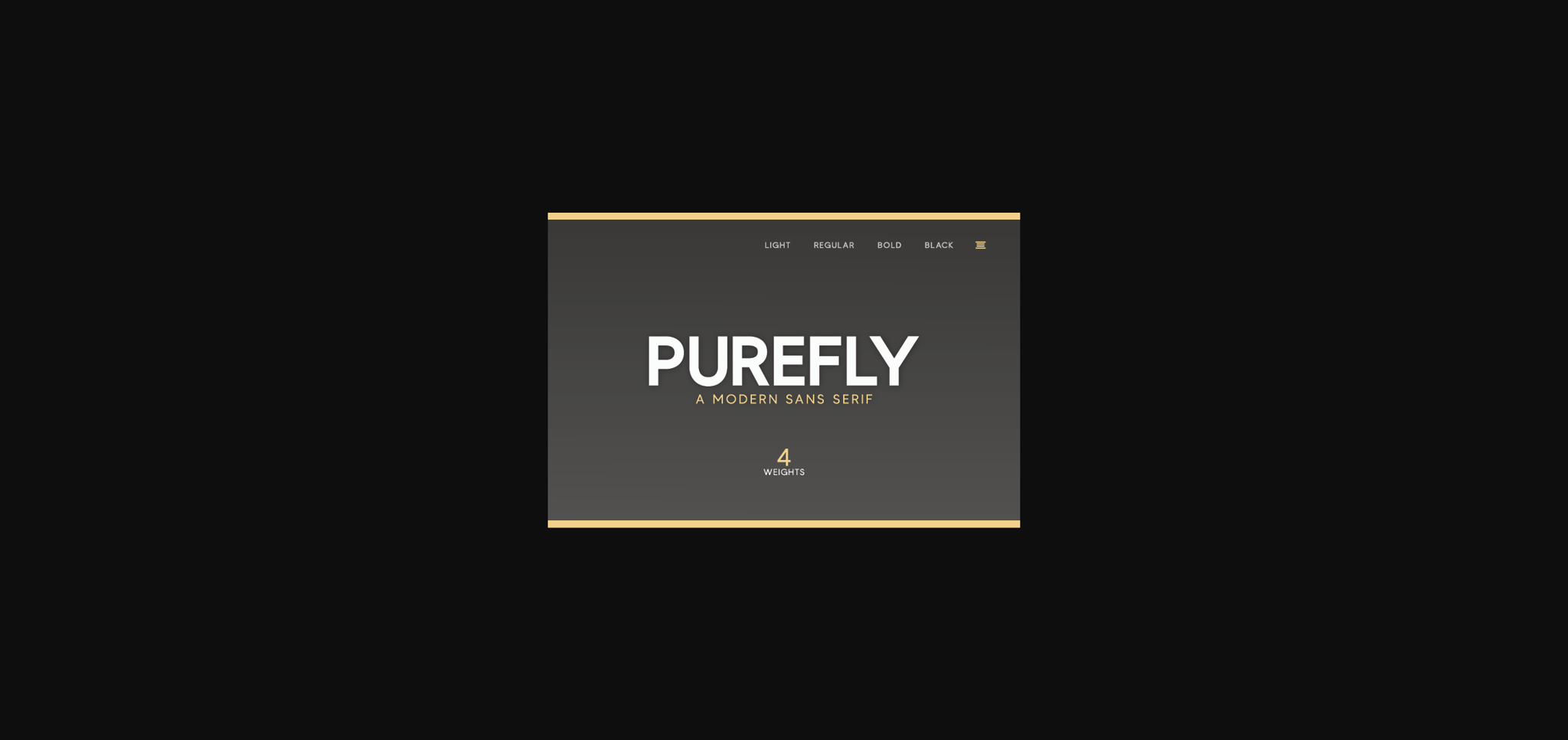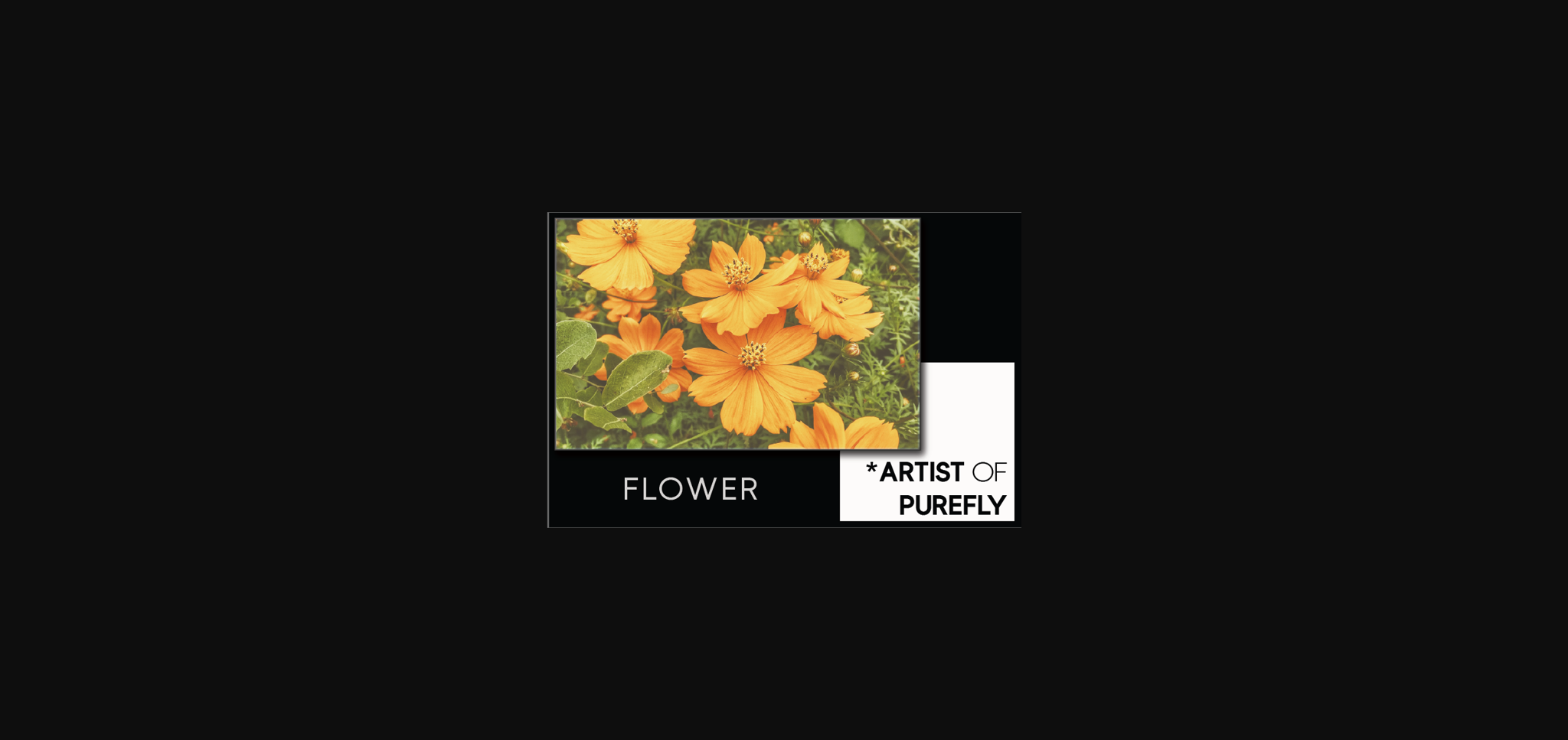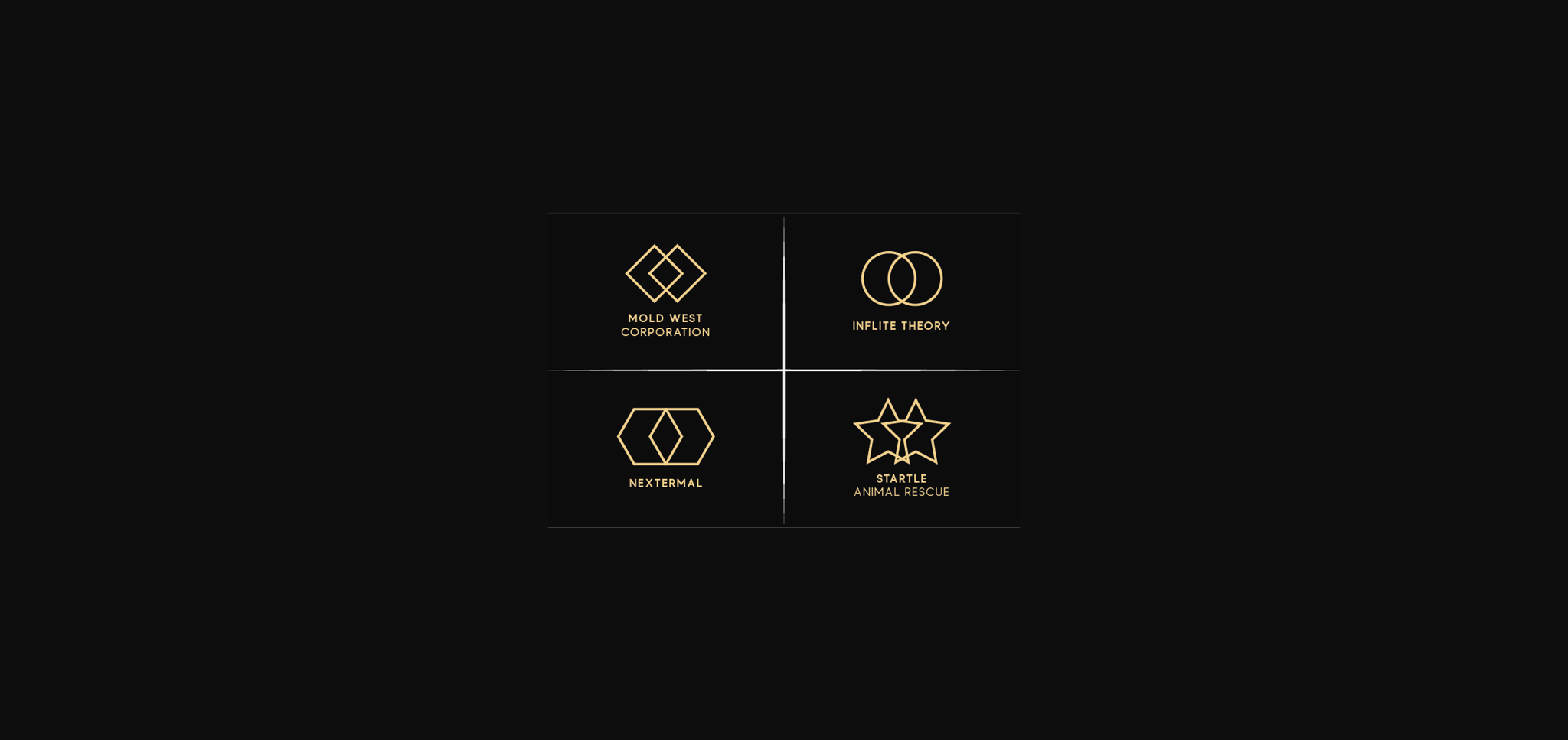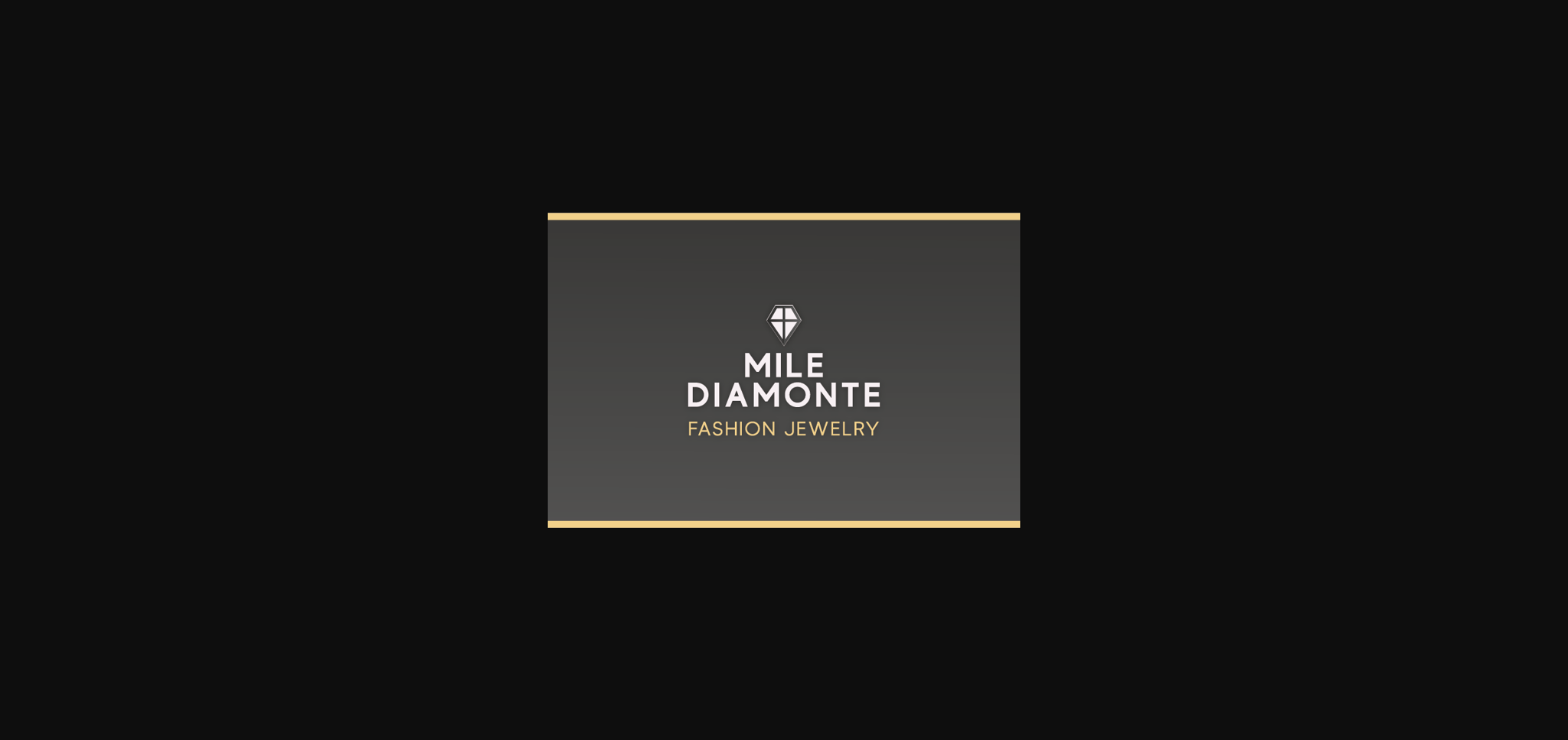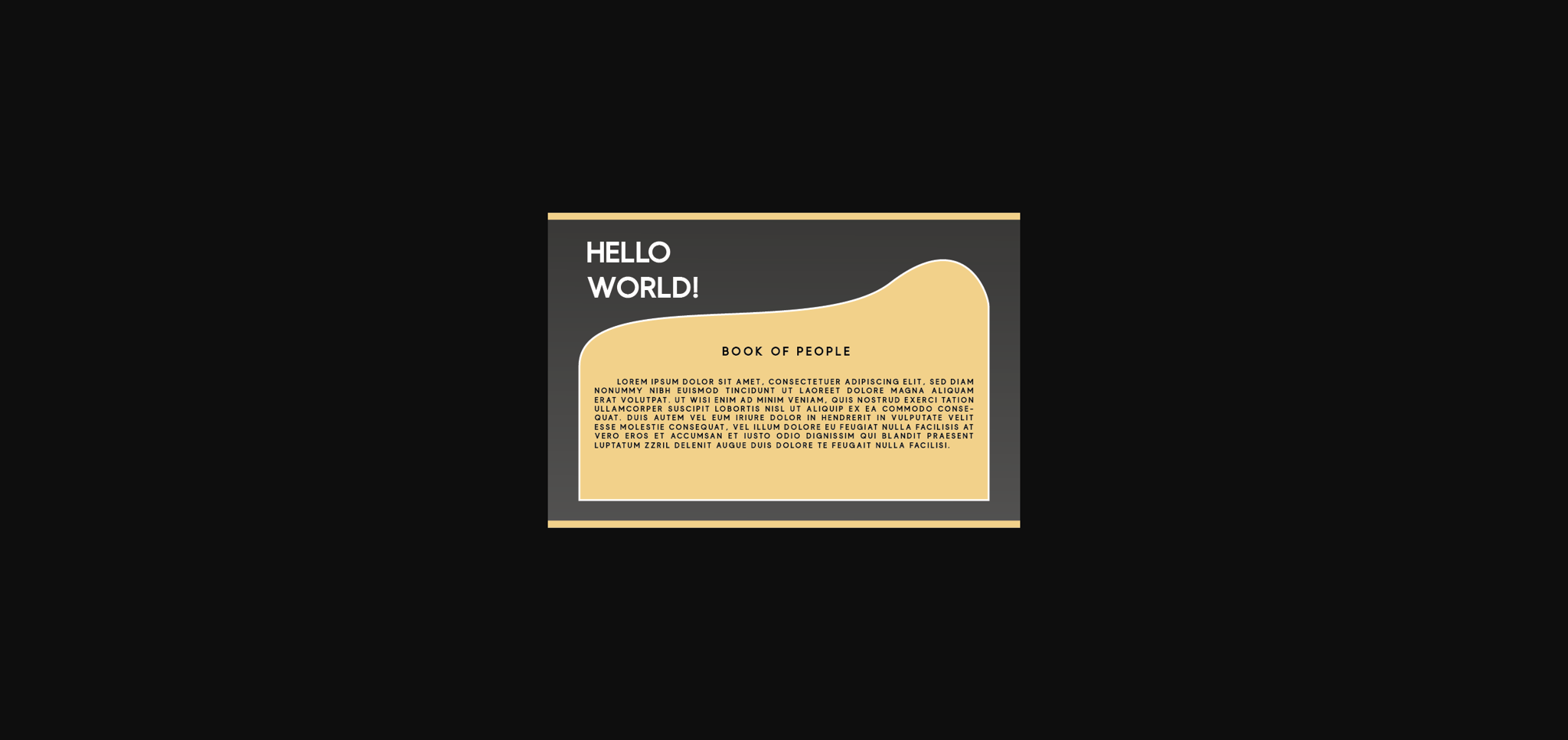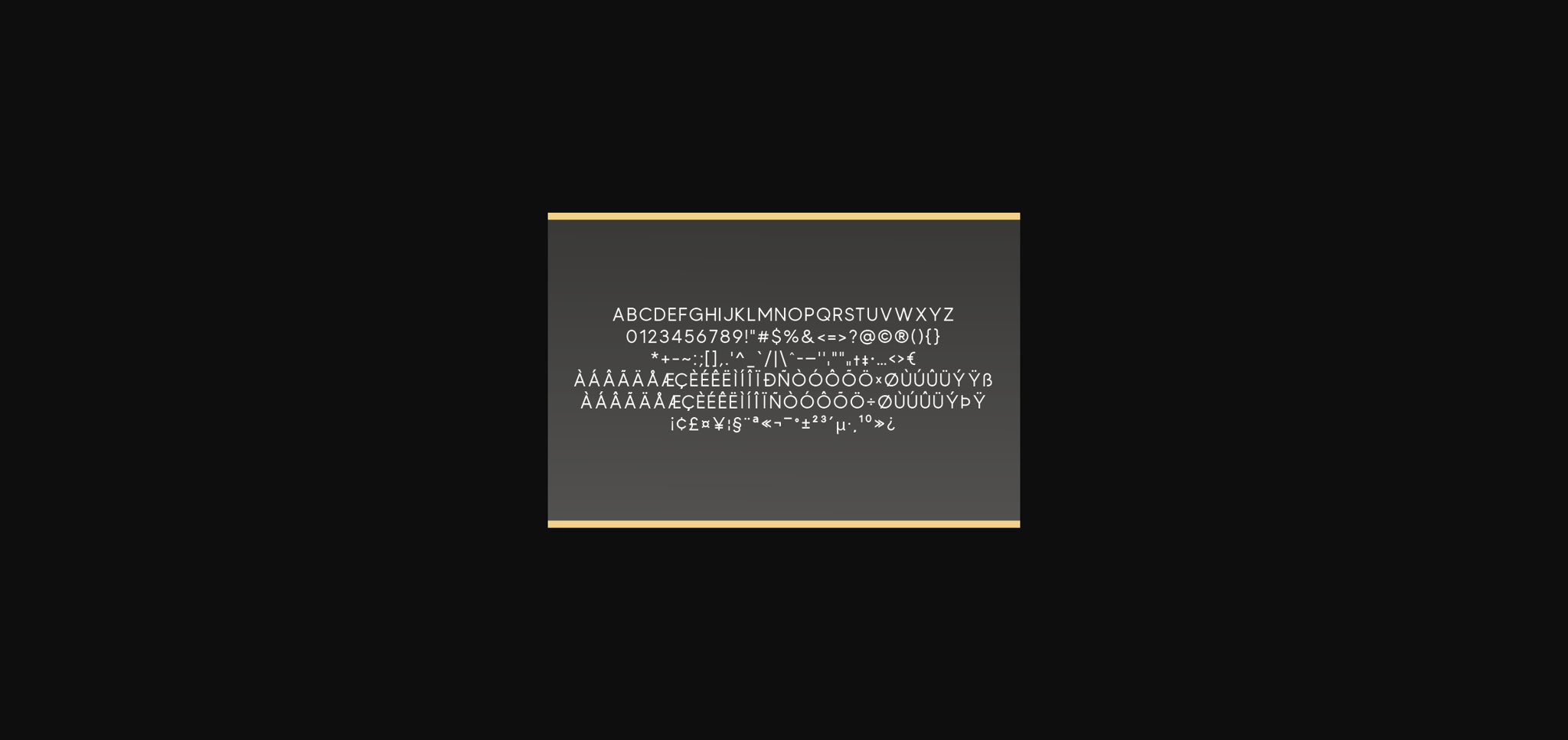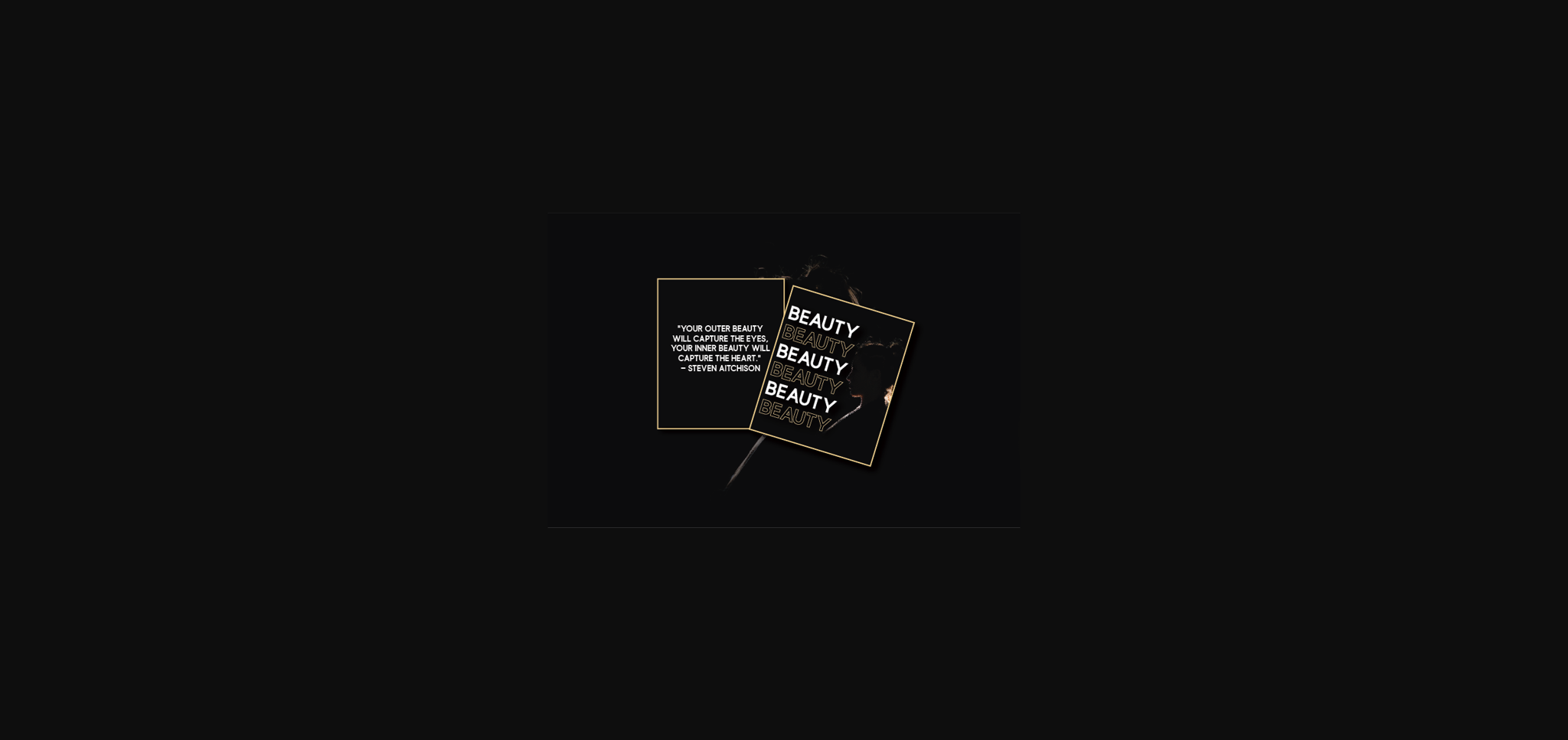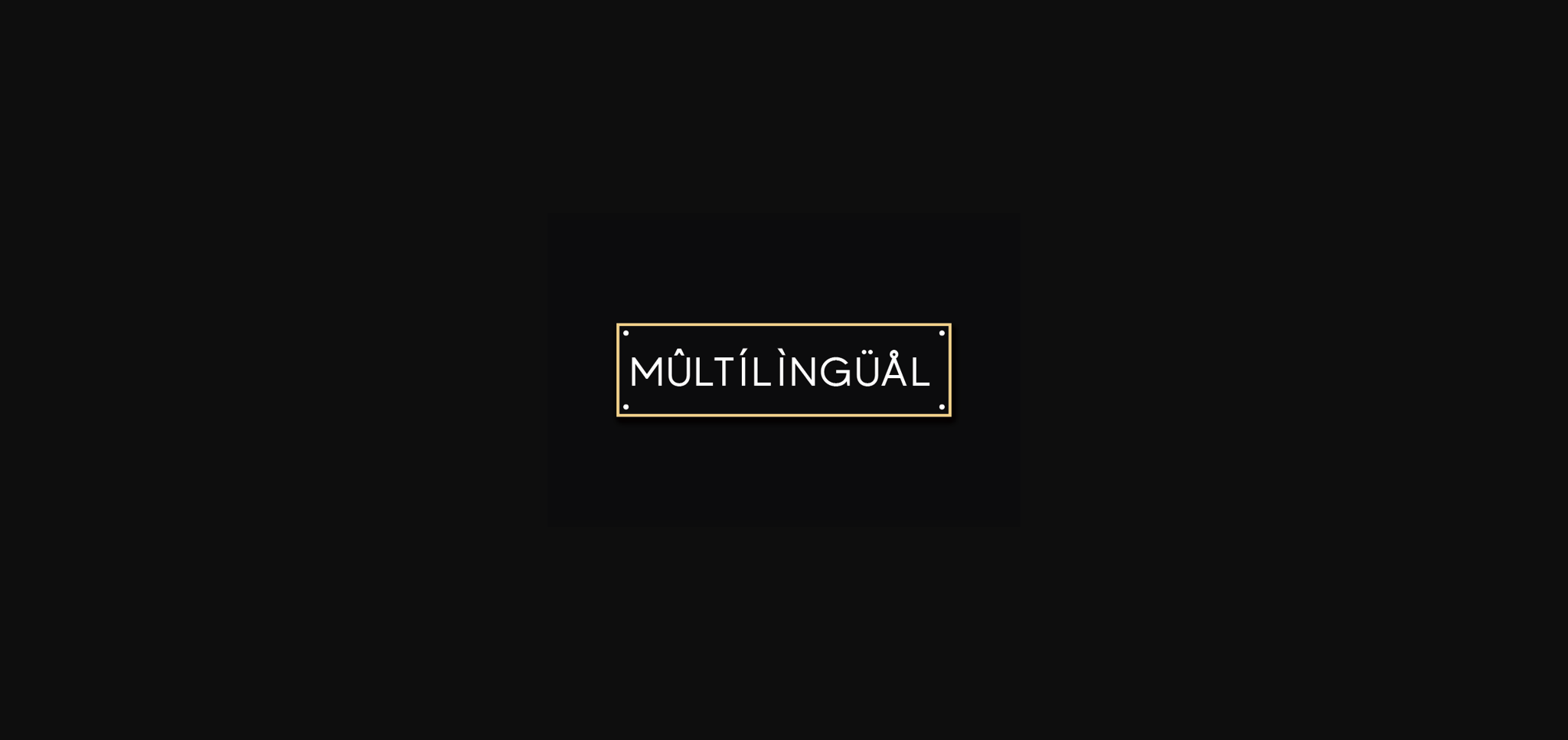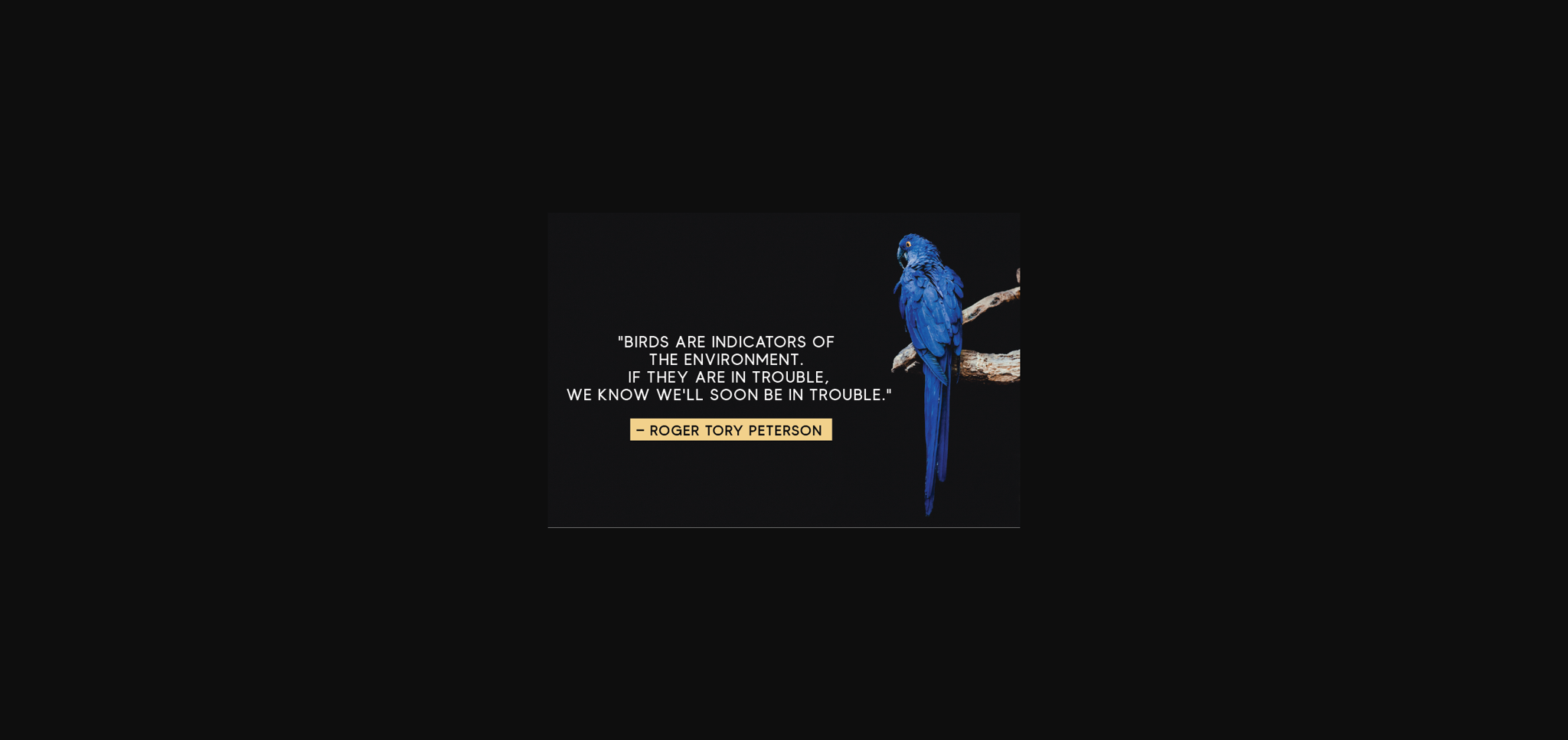
HomeSans Serif FontsPurefly Font Sans Serif Fonts Purefly Font FacebookXPinterestWhatsApp 1 of 11 ... Purefly Font Poster 2... Purefly Font Poster 3... Purefly Font Poster 4... Purefly Font Poster 5... Purefly Font Poster 6... Purefly Font Poster 7... Purefly Font Poster 8... Purefly Font Poster 9... Purefly Font Poster 10... Purefly Font Poster 11... About Purefly Font Purefly is a simple yet powerful Sans Serif font and is a great font to use if you want to make an impact! Purefly works great for headlines, logos, branding, magazine, poster, flyer, and lots of other designs. DOWNLOAD NOW People also explored Botdoh Font Alletha Font Sonar Font Helodia Font Classyloop Font Asmaraloca Font Unique Font Whitney Font Arkqunie Outline Bold Font 462 0 TagsPureflyPurefly Font Previous articleRogueland FontNext articleRoan Font LEAVE A REPLY Cancel reply Comment: Please enter your comment! Name:* Please enter your name here Email:* You have entered an incorrect email address! Please enter your email address here Website: Save my name, email, and website in this browser for the next time I comment. Personal Use Free Luxima Personal Use Free Read more about this font December Christmas Personal Use Free Read more about this font Makcex Personal Use Free Read more about this font Monogram Veg Personal Use Free Read more about this font BLOG How to Cut Any Font on Cricut: Convert a Font to SVG (Free) Turn any font into a clean SVG so it cuts crisp on Cricut - a quick 3-step workflow using a free font-to-SVG tool. Elegant Wedding Invitation Fonts – Handwritten & Script Fonts To increase your work productivity, choose the most readable fonts. Top 7 Google Fonts Alternatives for Faster and Privacy-Friendly Web Design (2025)